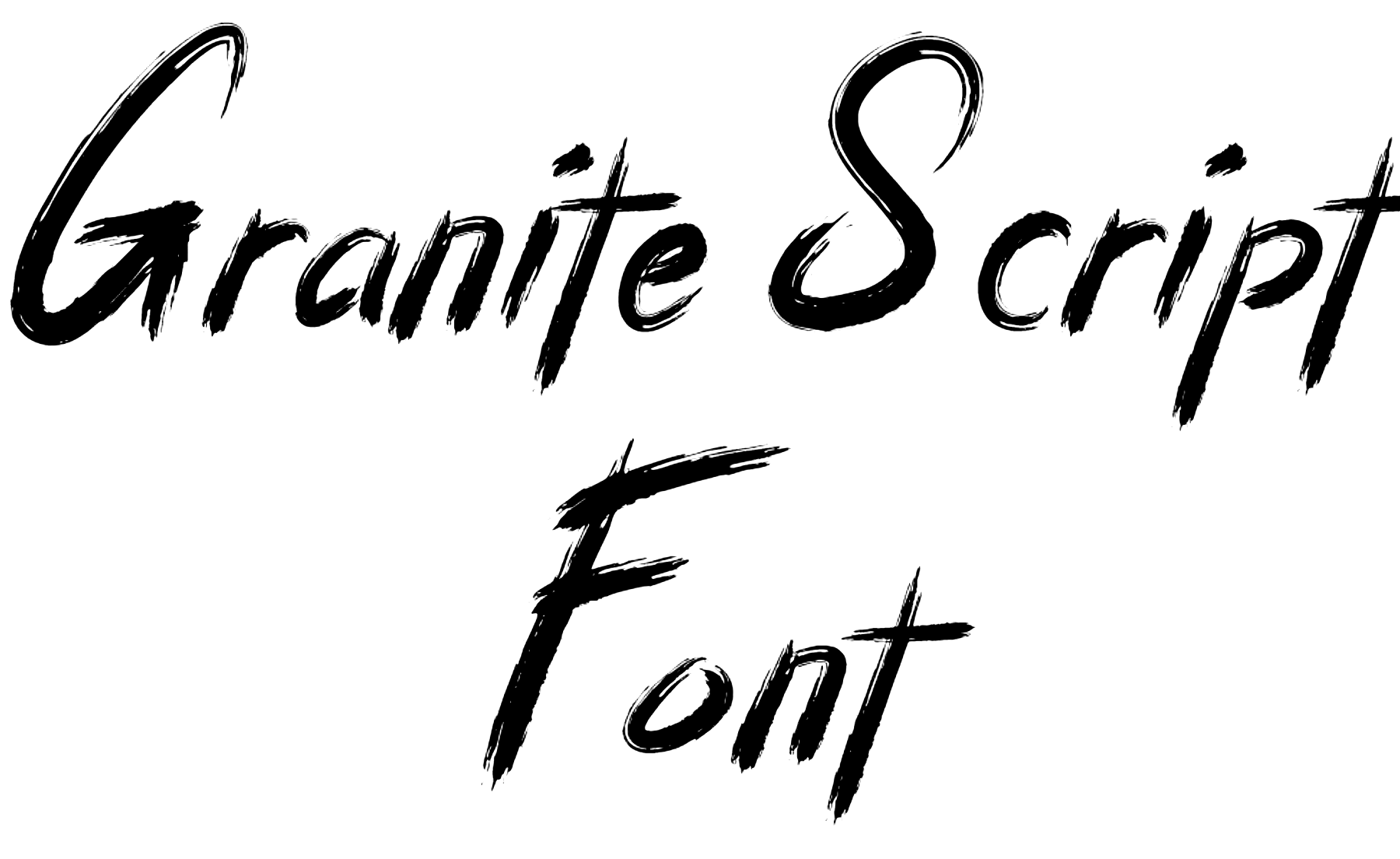
Granite Script
Granite Script is a script font designed by Rian Rahardi and published by Creatype Studio Co (2018). Its flowing, pen-made letters give names and short phrases a personal, polished look. It's a free download, and you can try it with your own text in the preview above first.
- Characters: A–Z, a–z and basic punctuation
What You Can Type With Granite Script
Granite Script has the full alphabet in upper and lowercase. There are no numbers, so you'll need a second font for dates, prices or phone numbers. Common punctuation such as ! and ? is included as well. It also has the accented letters you need for Spanish, French, German, Portuguese and Italian.
Where Granite Script Works Best
Think of Granite Script for wedding invitations, logos and signature-style headings. Its lowercase letters are small compared to the capitals, so set it a size or two bigger than usual. Script fonts read best in short bursts, so keep it to names, titles and one-line quotes. Skip all caps: script capitals are drawn to start a word, not to fill one.
Who designed Granite Script font?
Granite Script was designed by Rian Rahardi and published by Creatype Studio Co. The copyright line inside the font is dated 2018. DafontStyle has 28 more fonts by Rian Rahardi, and a few are linked above.
Does Granite Script support accented letters?
Yes. Granite Script includes the accented letters needed for Spanish, French, German, Portuguese and Italian, so it works for more than just English.
Does Granite Script have numbers?
No. Granite Script has no numbers, so pair it with another font for dates, prices or phone numbers.